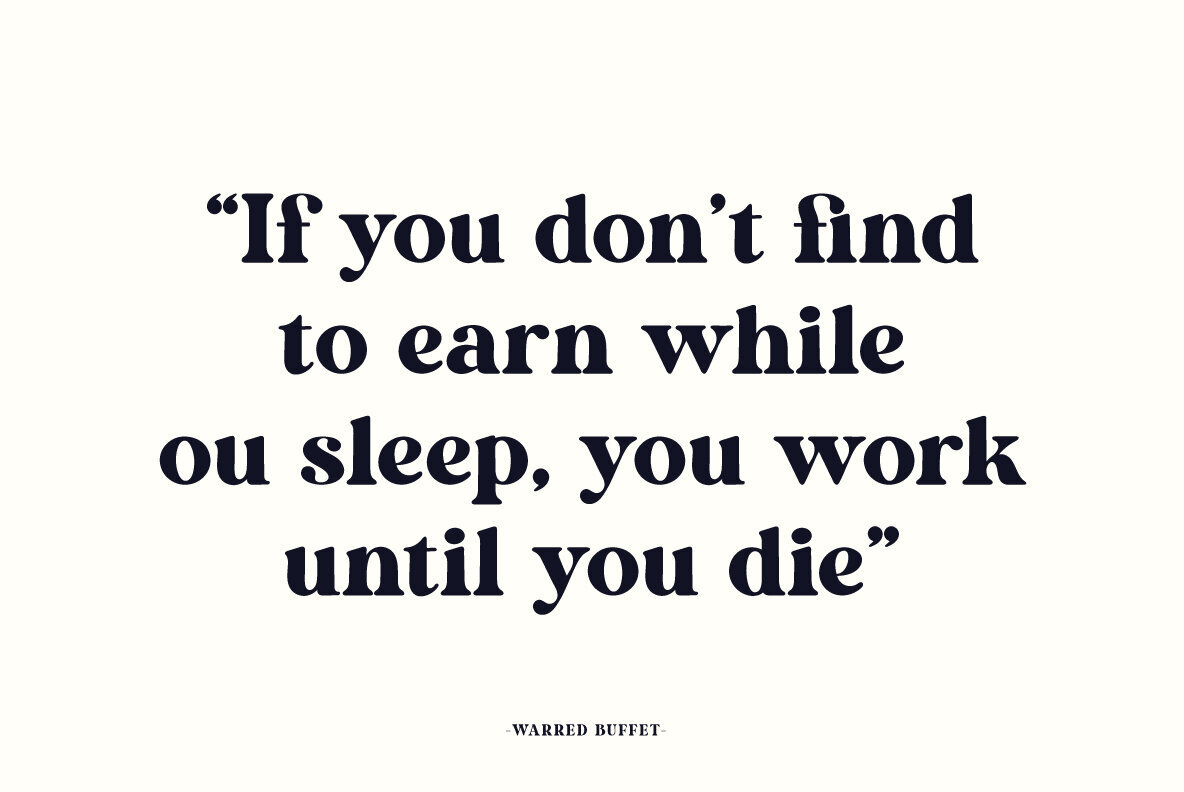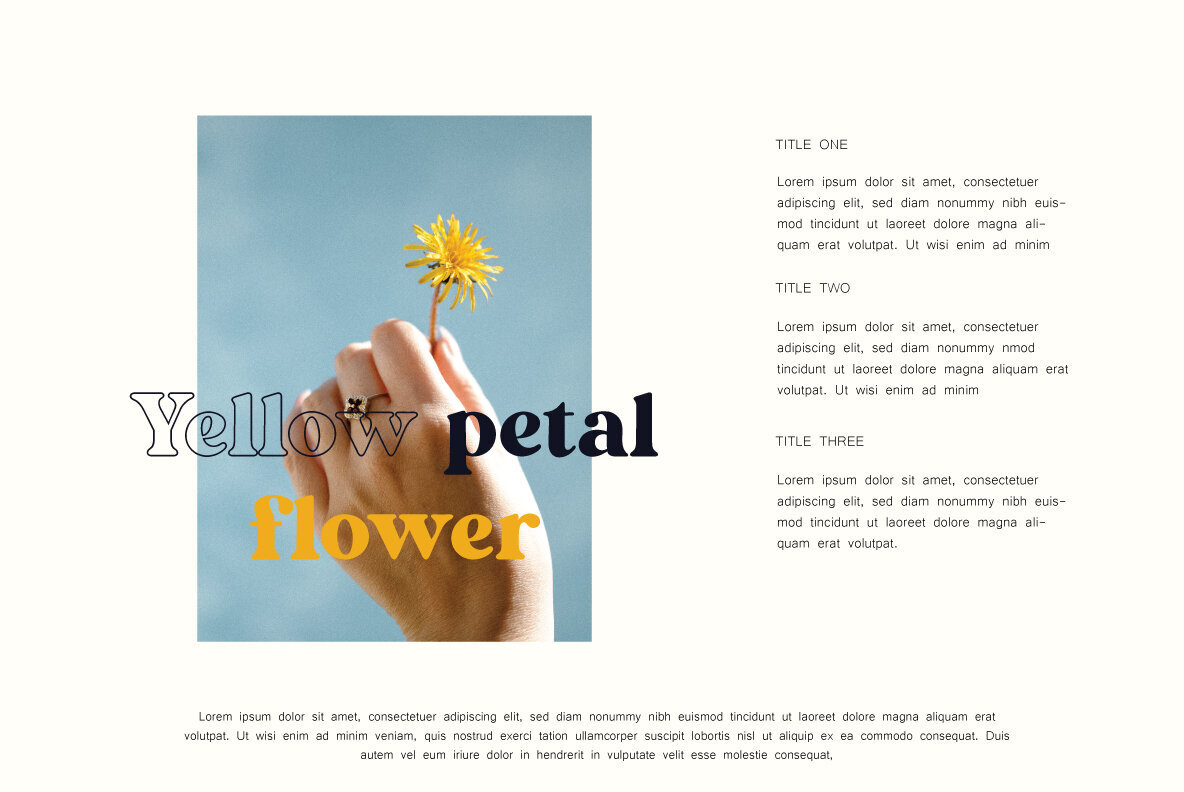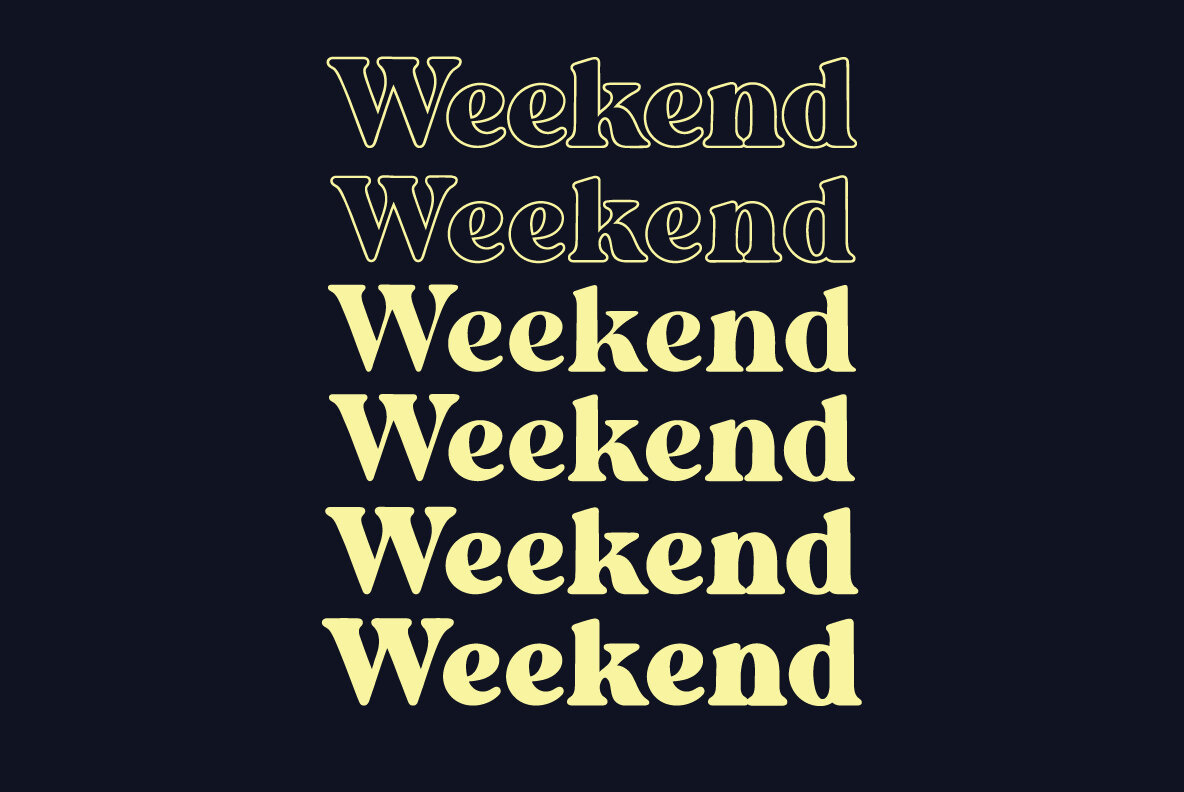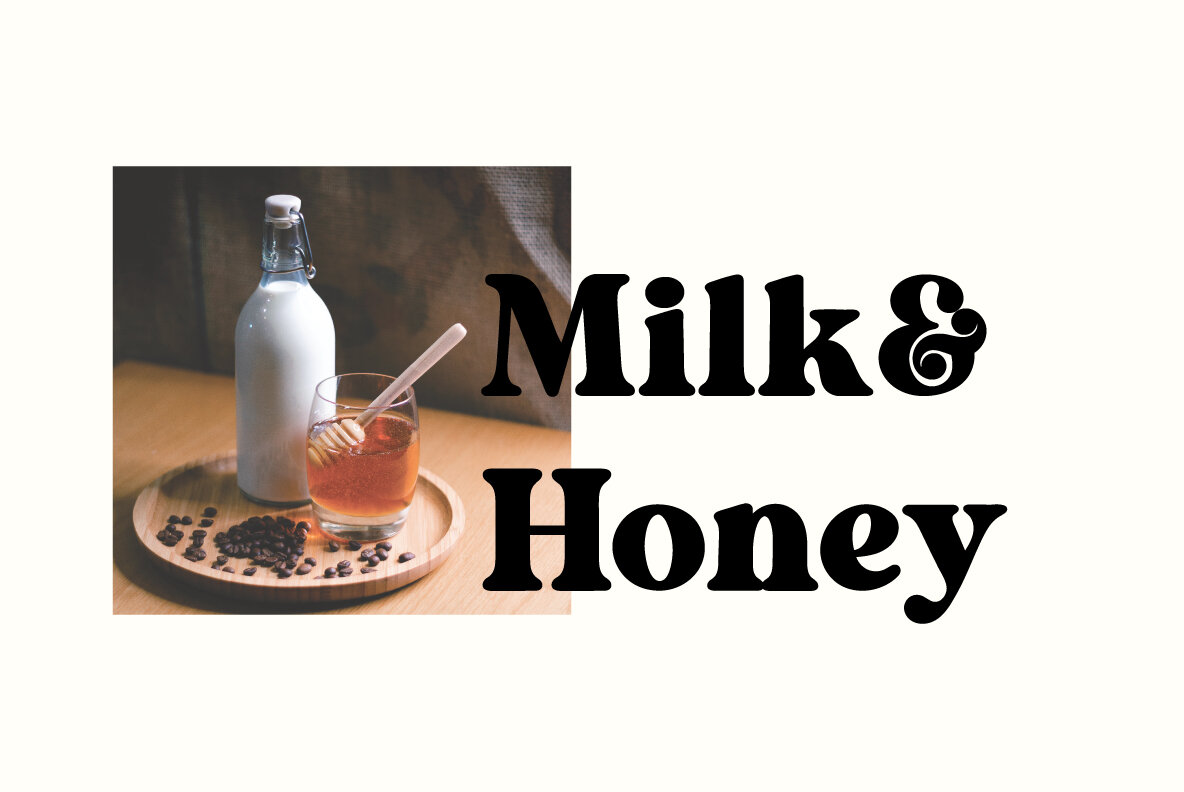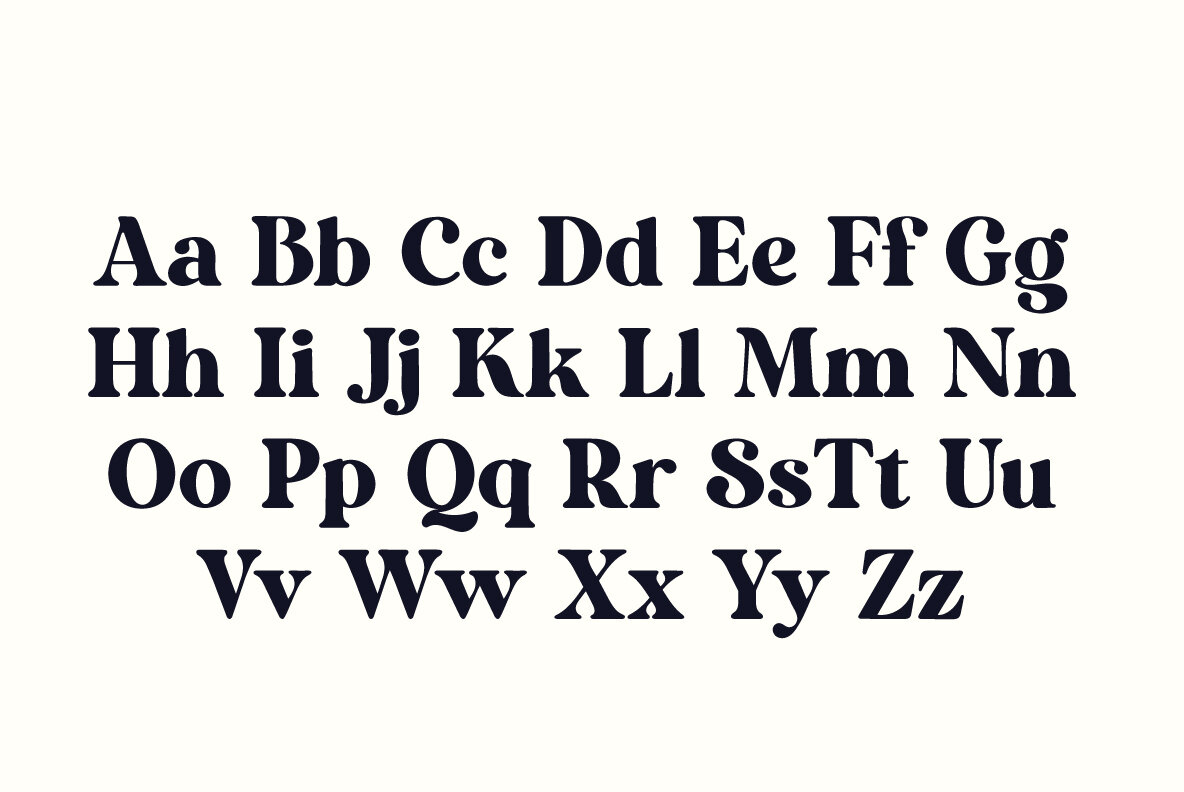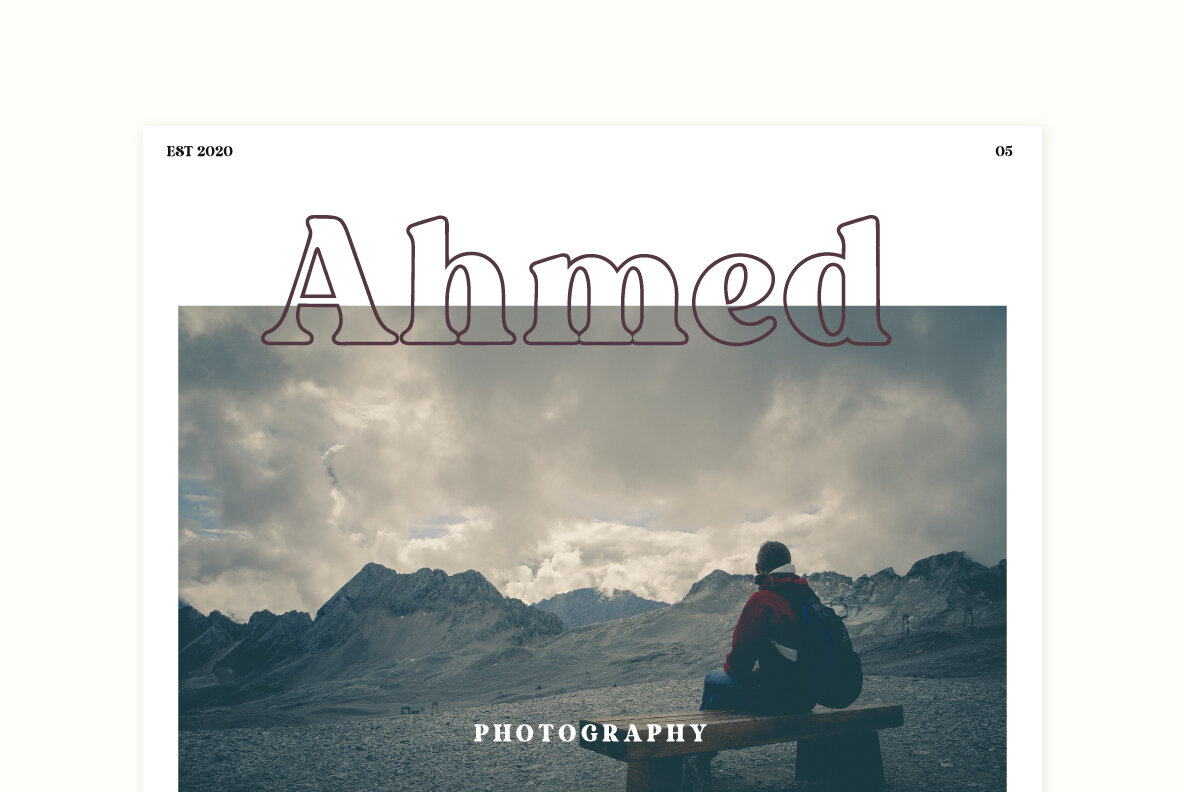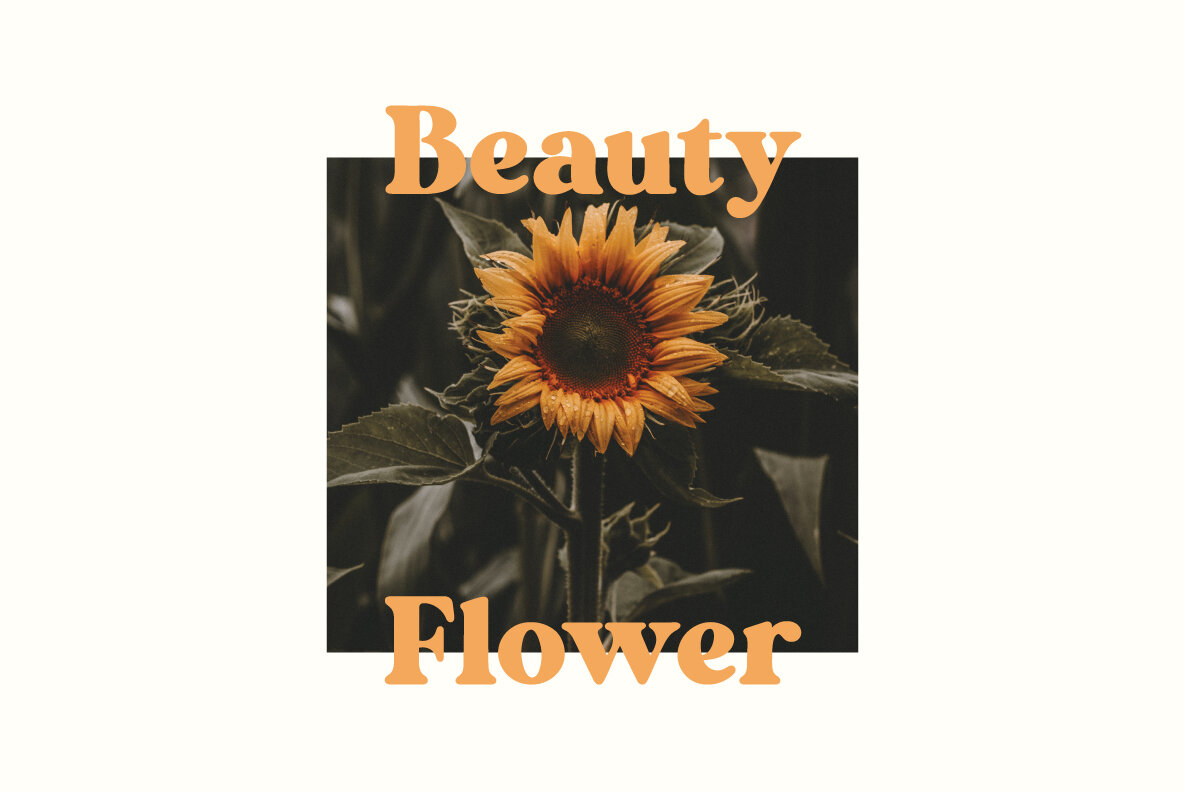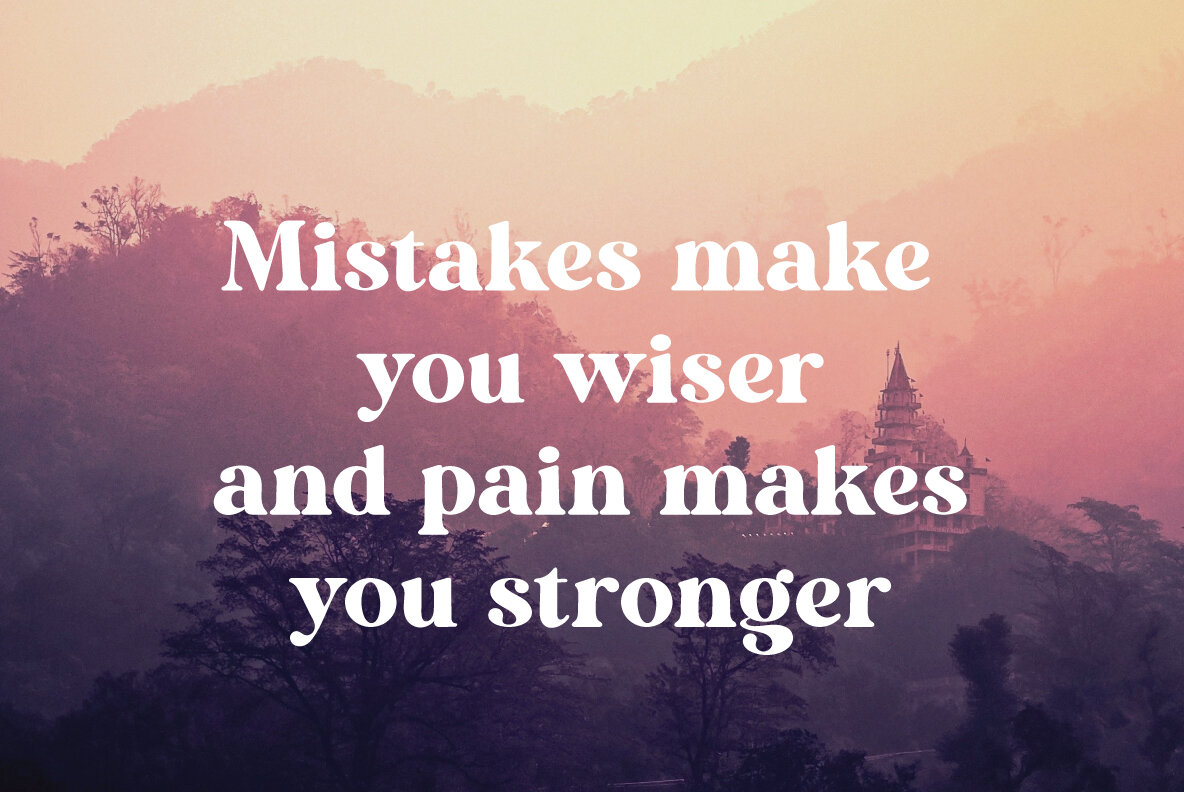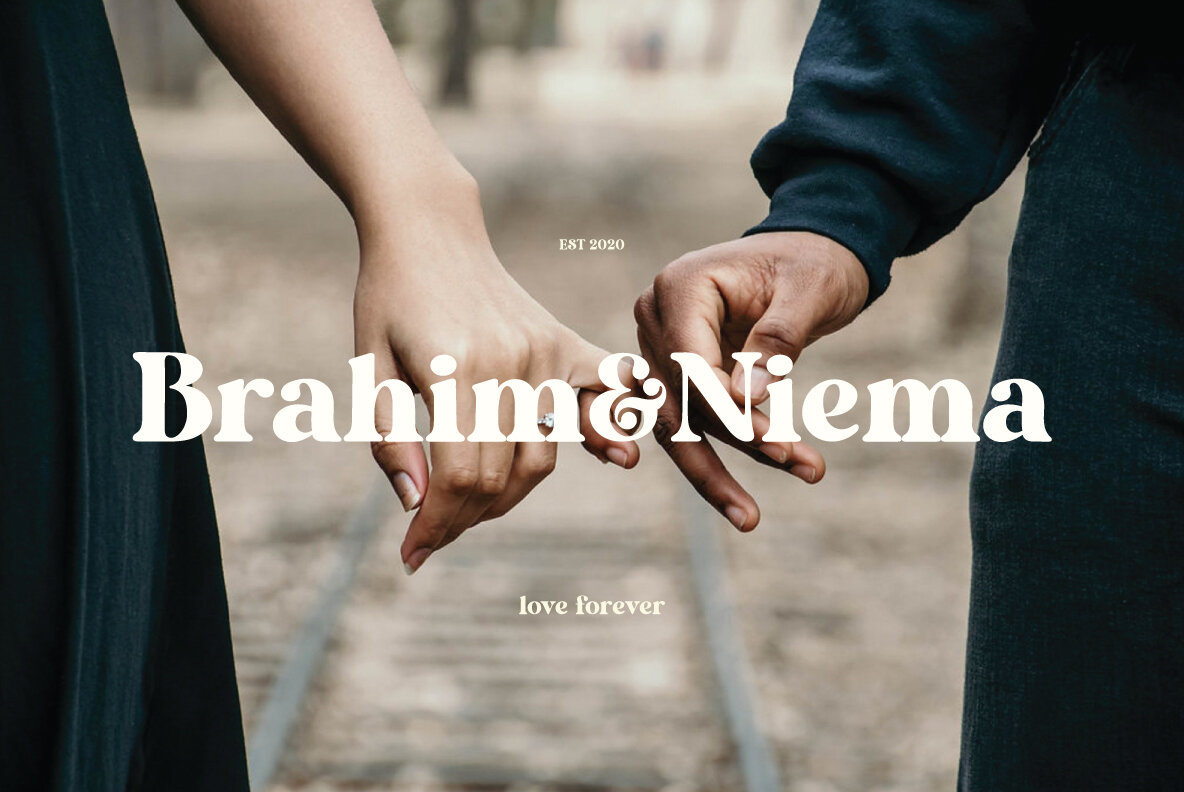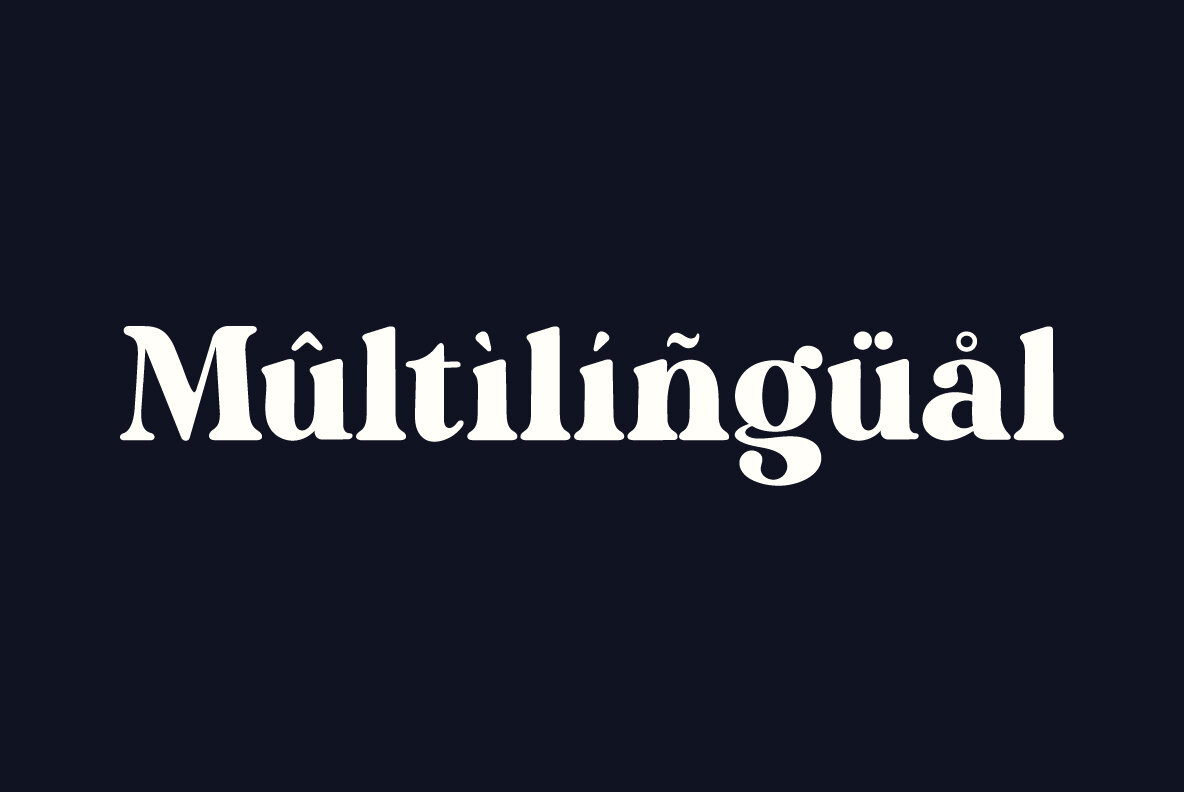
Magide 1
Magide is a typeface that can be used for anything from branding to headlines. It has the perfect amount of energy and edge so it will work well in most designs without feeling too over-the top or lacking creativity! The different styles give you even more options when creating your own unique look with this versatile font family